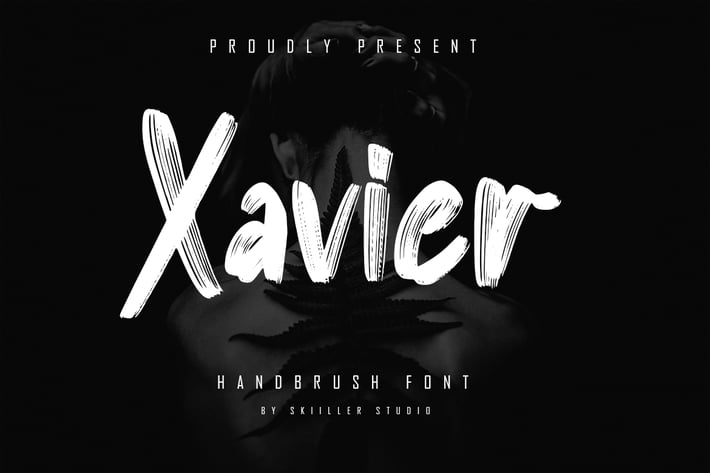
Xavier - Handbrush Font
Xavier is a brush font that has a rough brush-like texture accompanied the original and this font supports encoded PUA and basic Multilinggual
+ Basic Latin Language Support (AÀÁÂÃÄÅCÇDÐEÈÉÊËIÌÍÎÏÑOØÒÓÔÕÖUÙÜÚÛWYÝŸÆß )